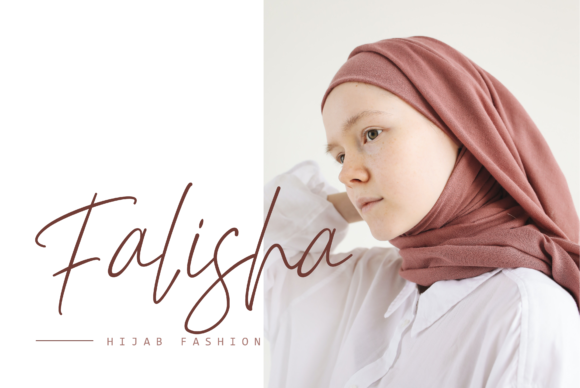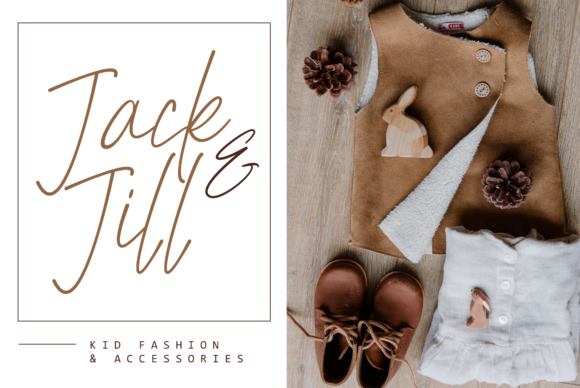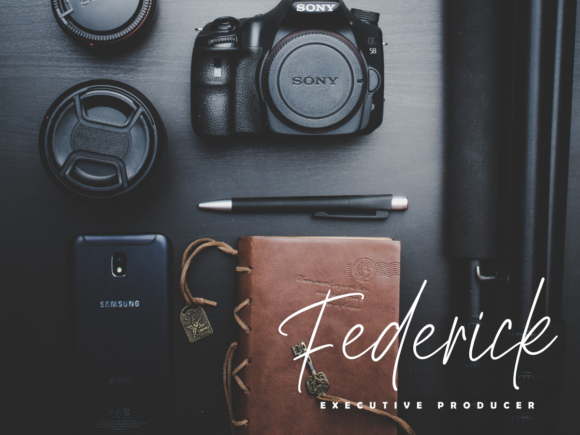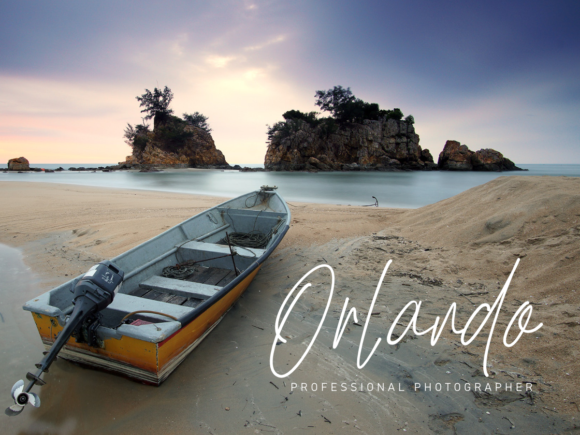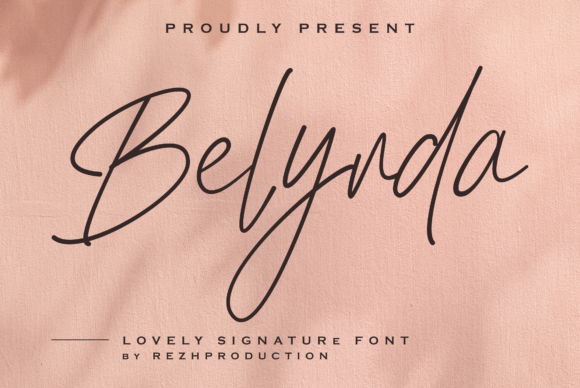
Belynda Font: Elevate Your Designs with Elegance and Sophistication
Are you looking for a font that exudes elegance, sophistication, and romance? Look no further than Belynda Font, a stunning thin lettered and graceful script font that’s perfect for creating breathtaking designs. With its ravishing style, Belynda is sure to capture your heart and inspire your creativity.
What is Belynda Font?
Belynda Font is a beautiful script font that’s designed to add a touch of luxury and refinement to your designs. Its thin letters and flowing curves create a sense of movement and fluidity, making it perfect for a wide range of applications, from wedding invitations and stationery to social media posts and branding materials.
Key Features of Belynda Font
• Thin lettered and graceful design: Belynda’s delicate letters are perfect for creating elegant and sophisticated designs that will leave a lasting impression.
• Ravishing style: With its beautiful curves and flowing lines, Belynda is sure to add a touch of romance and glamour to your designs.
• Highly versatile: Belynda is perfect for a wide range of applications, from wedding invitations and stationery to social media posts, branding materials, and more.
• Easy to read and use: Despite its elegant design, Belynda is easy to read and use, making it perfect for both digital and print applications.
Uses for Belynda Font
Belynda Font is perfect for designers and crafters who want to create stunning designs that will leave a lasting impression. Here are some ideas to get you started:
• Wedding invitations and stationery: Belynda’s elegant design makes it perfect for creating beautiful wedding invitations, save-the-date cards, and other stationery.
• Social media posts: Add a touch of elegance to your social media posts with Belynda’s beautiful script font.
• Branding materials: Use Belynda to create stunning branding materials, such as logos, business cards, and letterheads.
• Digital art and illustrations: Belynda’s flowing curves and delicate letters make it perfect for creating beautiful digital art and illustrations.
Why Choose Belynda Font?
With so many fonts to choose from, why should you choose Belynda Font? Here are just a few reasons:
• Unique and elegant design: Belynda’s thin lettered and graceful design sets it apart from other fonts, making it perfect for designers who want to create unique and elegant designs.
• High-quality and versatile: Belynda is a high-quality font that’s perfect for a wide range of applications, from digital to print.
Tips for Using Belynda Font
Here are a few tips for using Belynda Font to get the most out of this beautiful script font:
• Use it sparingly: Belynda’s elegant design is perfect for adding a touch of sophistication to your designs, but use it sparingly to avoid overwhelming your design.
• Pair it with other fonts: Belynda pairs perfectly with other fonts, such as sans-serif fonts, to create stunning contrast and visual interest.
• Experiment with different sizes and colors: Belynda’s delicate design looks beautiful in a range of sizes and colors, so don’t be afraid to experiment and find the perfect combination for your design.
Belynda Font is a stunning thin lettered and graceful script font that’s perfect for designers and crafters who want to create elegant and sophisticated designs. With its ravishing style and highly versatile design, Belynda is sure to capture your heart and inspire your creativity. Whether you’re creating wedding invitations, social media posts, or branding materials, Belynda is the perfect choice for adding a touch of luxury and refinement to your designs.